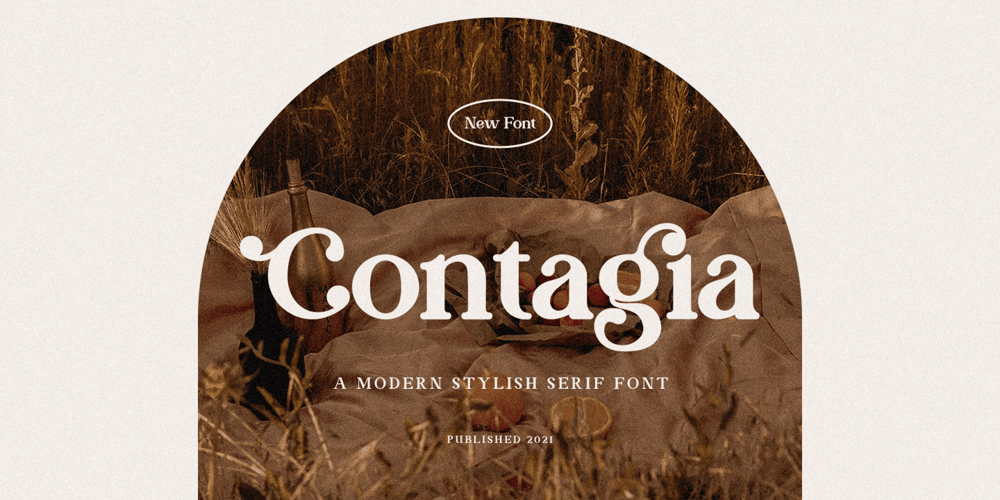
Contagia Font Family was designed by Hayinah and published by Rockboys Studio. Contagia contains 1 styles and family package options. Contagia is a trendy and stylish serif font. It is PUA encoded which means you can access all of the glyphs and swashes with ease! This font reads as strong, confident, and dynamic and can add tons of nostalgic character to your designs.